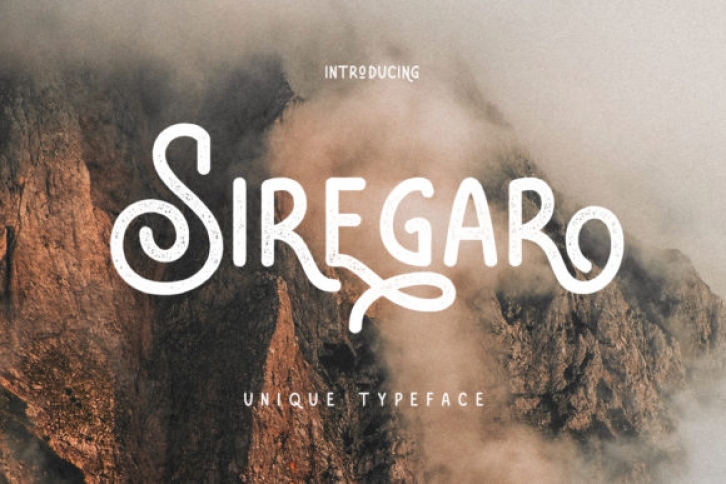
Siregar is a unique and distinct display font, sending out a vintage vibe. Fall in love with its incredibly versatile style and use it to create gorgeous wedding invitations, beautiful stationary art, eye-catching social media posts, and much more!